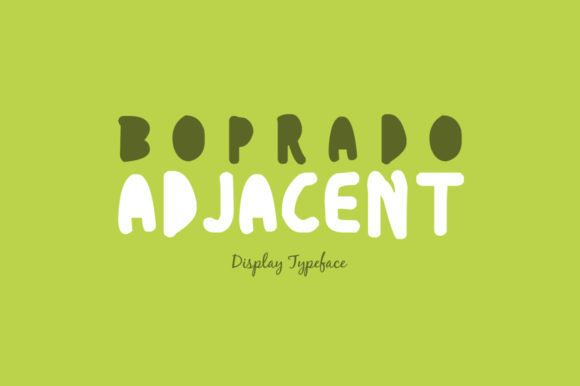
Boprado Adjacent Font
Welcome to the world of Boprado Adjacent, the font that will ignite your creativity and leave an unforgettable impression on your audience. This captivating display font, meticulously crafted by Spanking Fonts, is your gateway to a universe of boundless expression.
Boprado Adjacent is not just a font; it's a symphony of style and substance. Its graceful curves and sharp angles dance together in perfect harmony, creating a visual masterpiece that commands attention. Whether you're designing stunning stationery, crafting eye-catching logos, or weaving your words into captivating t-shirts, Boprado Adjacent will elevate your creations to new heights.
Dive into the world of Boprado Adjacent and let your imagination soar. Its versatility knows no bounds, effortlessly adapting to a myriad of design projects. From elegant print designs to dynamic website headers, from sophisticated photo frames to vibrant flyers, Boprado Adjacent transforms your visions into unforgettable realities.
Picture your designs adorned with the allure of Boprado Adjacent. Its bold strokes and playful spirit will captivate your audience, leaving them spellbound by your creations. Unleash your inner artist and let Boprado Adjacent guide you toward design excellence.
Don't settle for ordinary fonts. Embrace the extraordinary with Boprado Adjacent. Experience the joy of creating designs that resonate with your soul and make a lasting impact on the world. Immerse yourself in the captivating world of Boprado Adjacent today and let your creativity flourish like never before.